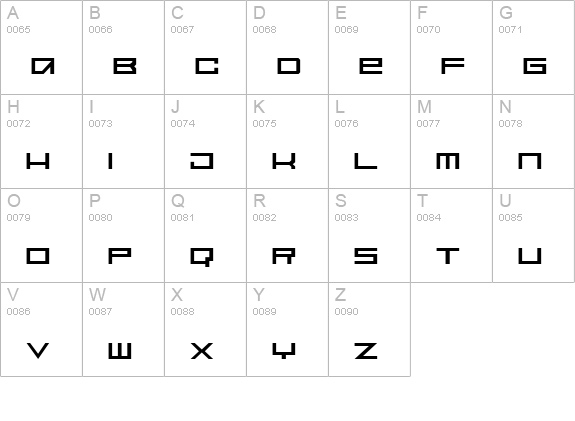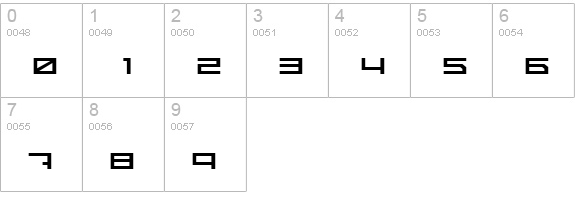
AmmoMonkey is a versatile and modern font that combines sleek lines with a touch of playfulness. This font is perfect for a wide range of design projects, from branding to web design to print materials. With its clean and legible appearance, AmmoMonkey is sure to make your text pop and grab attention. Best of all, AmmoMonkey is available for free! You can easily download this font at FontsMarket.com and start using it in your projects right away. Don't miss out on the opportunity to add this stylish and eye-catching font to your collection at no cost. Upgrade your designs with AmmoMonkey today!